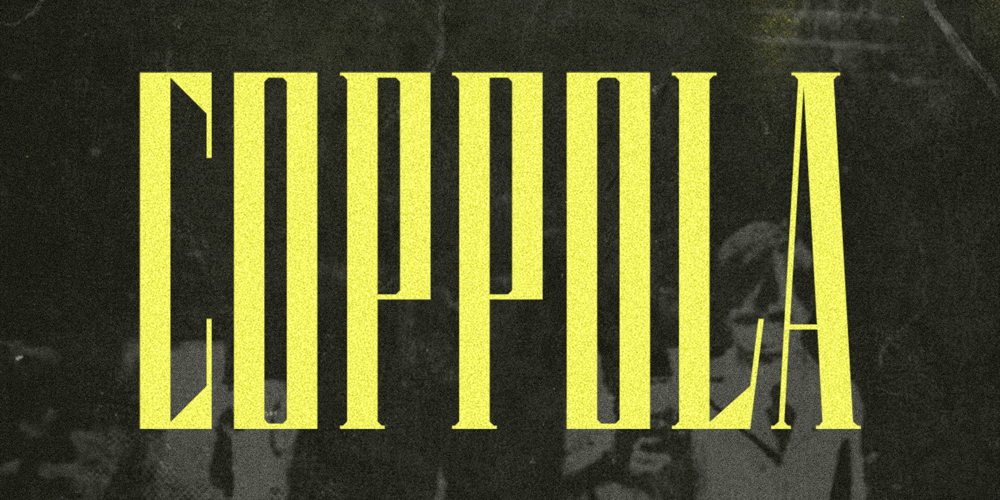
Coppola Font Family was designed by Chad Palmer and published by Palmer Type Company. Coppola contains 1 styles and family package options. Coppola is a brand new typeface that combines a little bit of Didot, a pinch of Art Nouveau, and a dash of Italian mafia. A-Z, a-z Numbers Alternates Ligatures Multi-language support Symbols Special characters